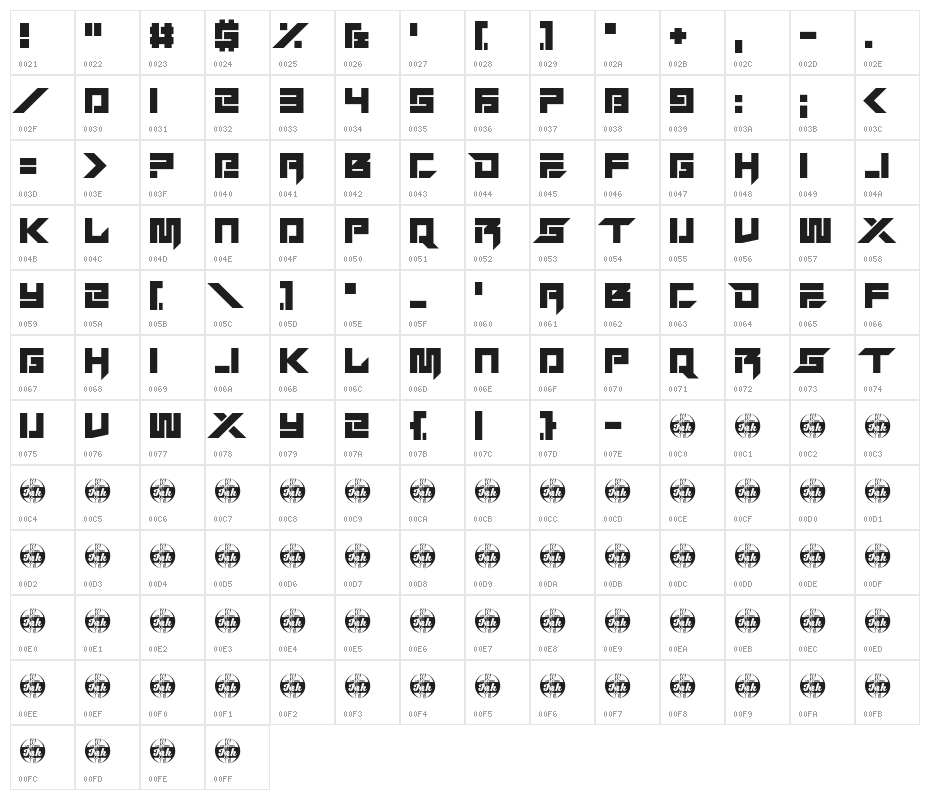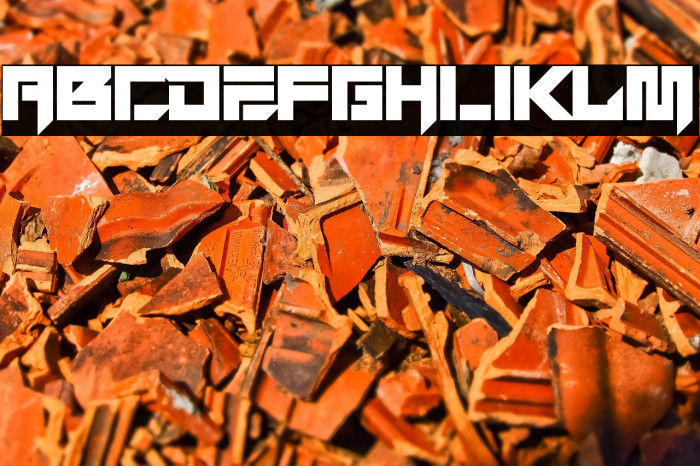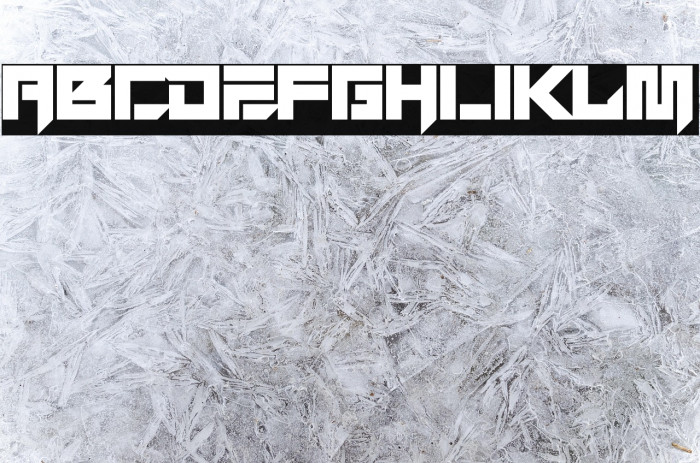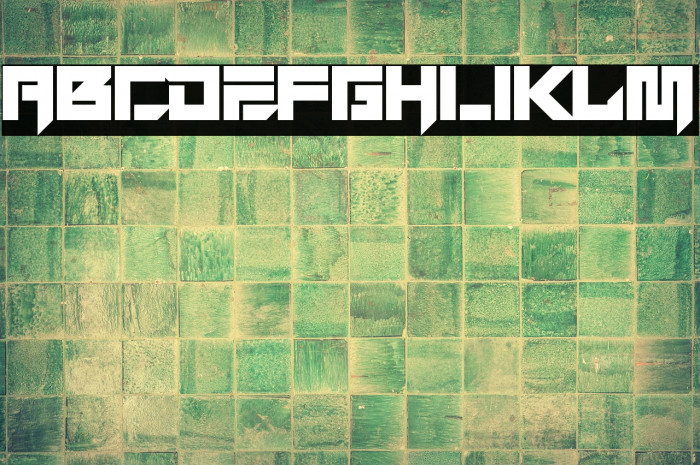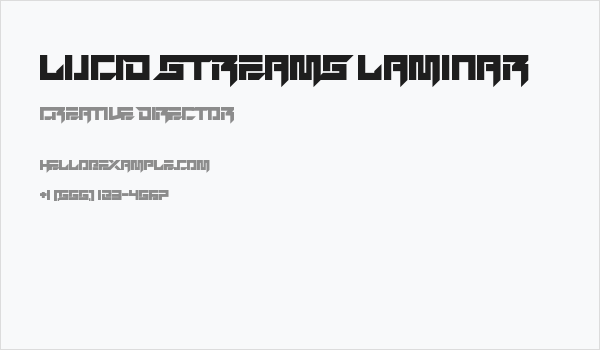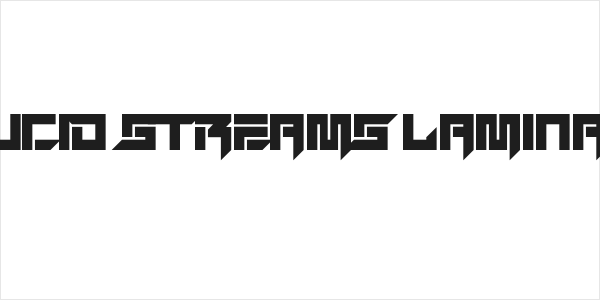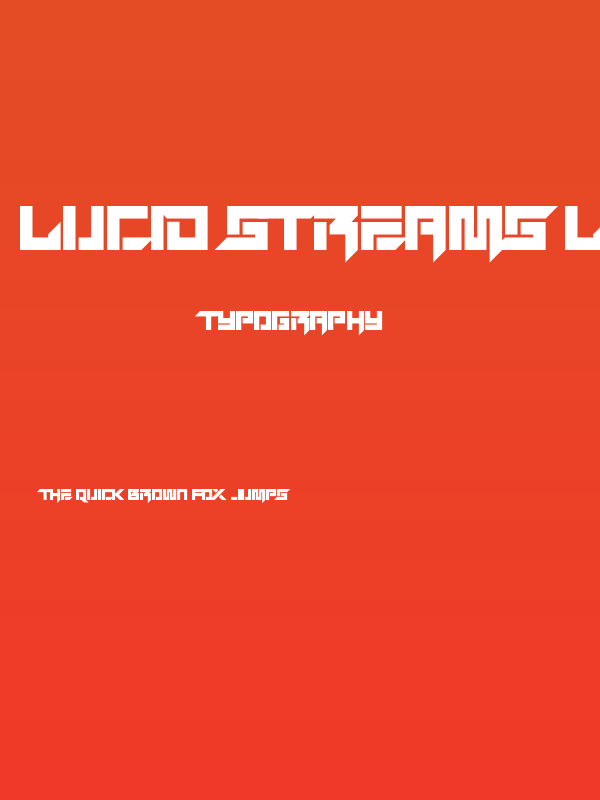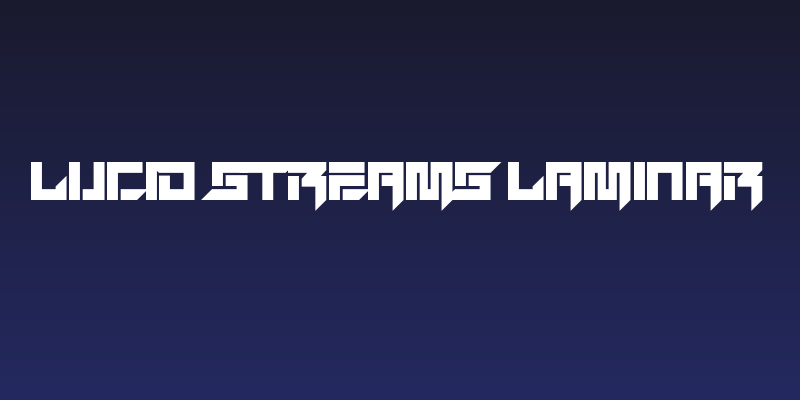
Lucid Streams Laminar Font
Lucid Streams Laminar Description
This font features a bold and geometric design with sharp angles and a futuristic aesthetic. The characters are constructed with thick, block-like forms that give a sense of strength and modernity. The uppercase and lowercase letters maintain a consistent style, emphasizing angular cuts and straight lines. Numbers and special characters follow the same design principles, ensuring uniformity across the font. The overall appearance is striking and attention-grabbing, making it suitable for projects that require a strong visual impact.
Overall StyleFuturistic
Proposed ProjectsIdeal for sci-fi themed designs, video game titles, tech branding, and modern posters.